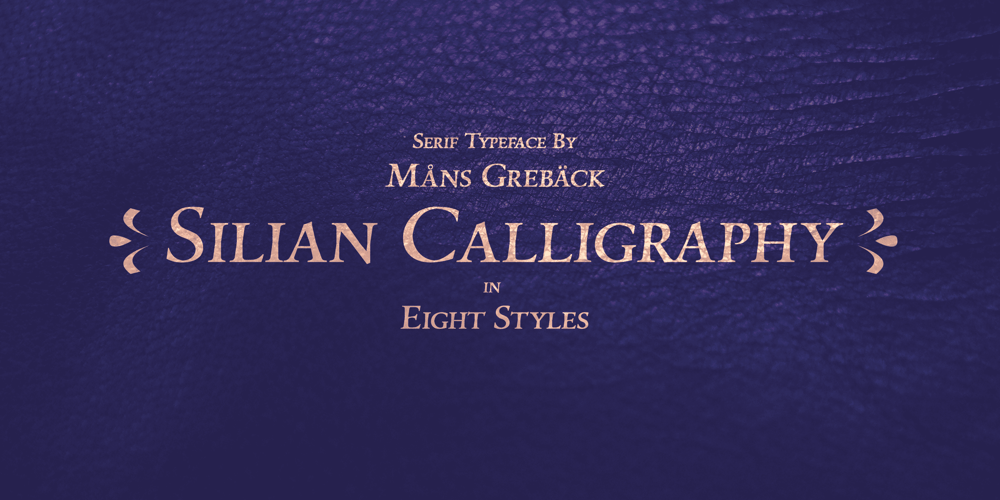
Silian Calligraphy Font Family was designed by Måns Grebäck and published by Mans Greback. Silian Calligraphy contains 8 styles and family package options. Silian Calligraphy is a sharp serif typeface.With classy letterforms and an organic appearance, this calligraphic lettering has a proper look, yet a vivid personality. Use [ ] { } for decorative elements.Example: [Silian Calligraphy]The Silian Calligraphy typeface family consists of eight high-quality styles:Light, Regular, Bold and Black, and each style as Italic. The font is built with advanced OpenType functionality and has a guaranteed top-notch quality, containing stylistic and contextual alternates, ligatures and more features; all to give you full control and customizability. It has extensive lingual support, covering all Latin-based languages, from North Europe to South Africa, from America to South-East Asia. It contains all characters and symbols you’ll ever need, including all punctuation and numbers.